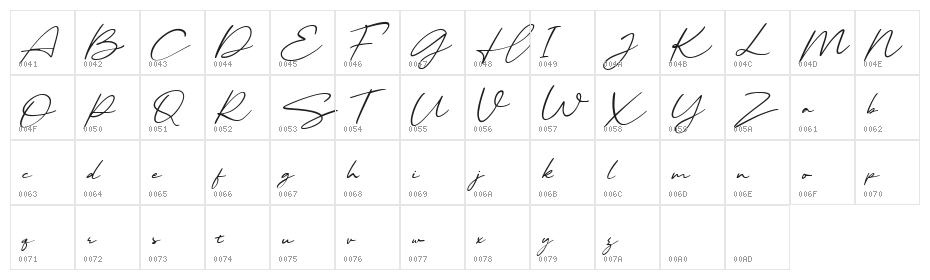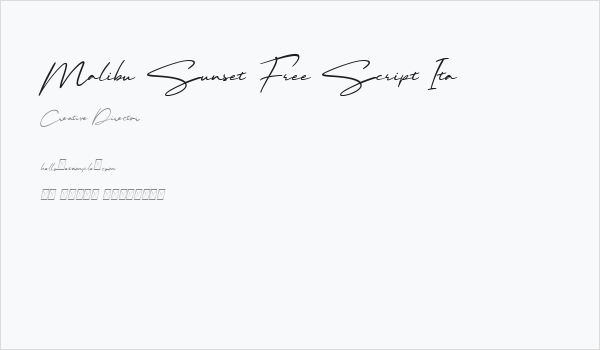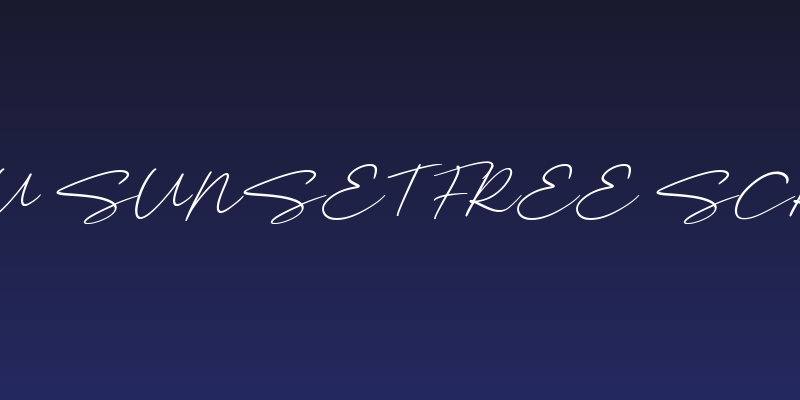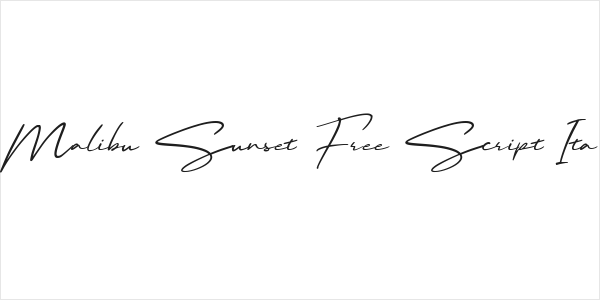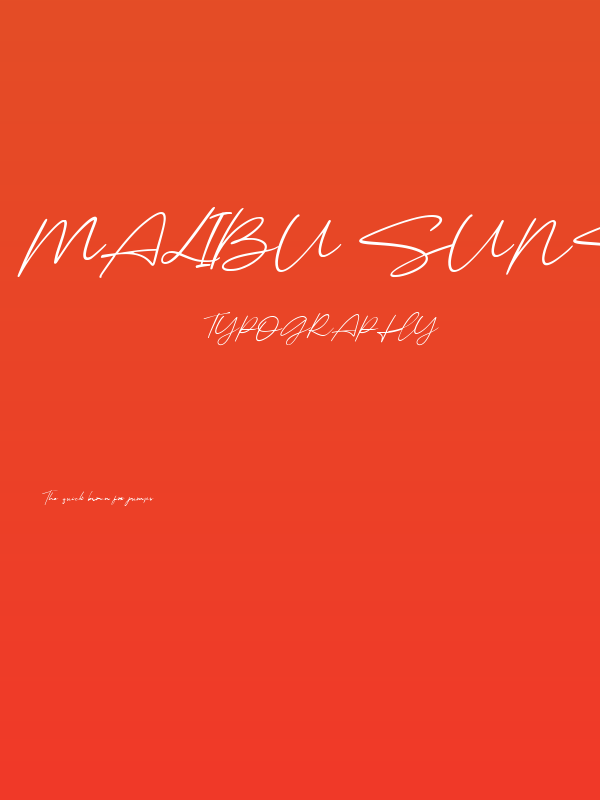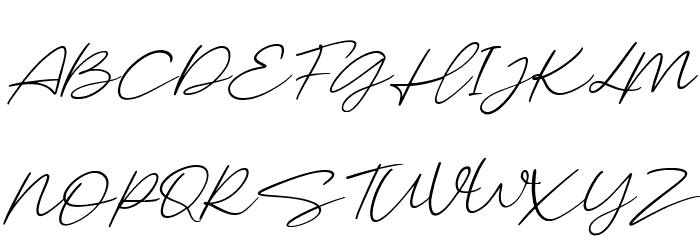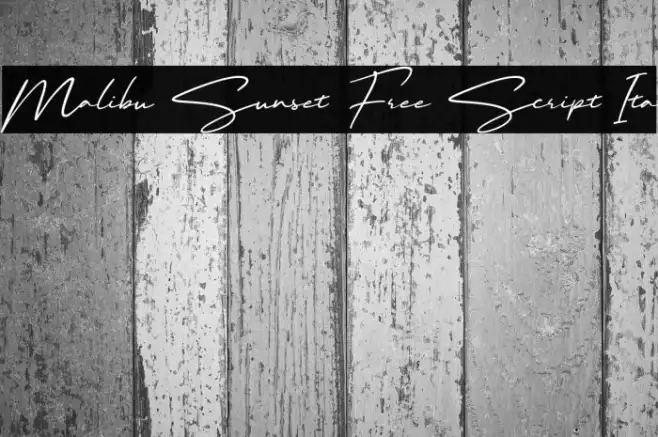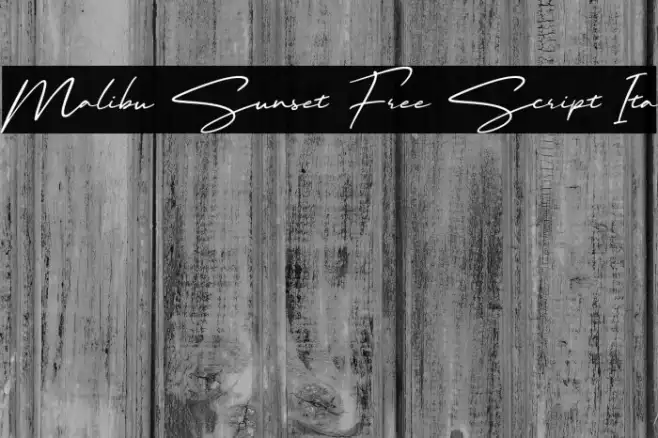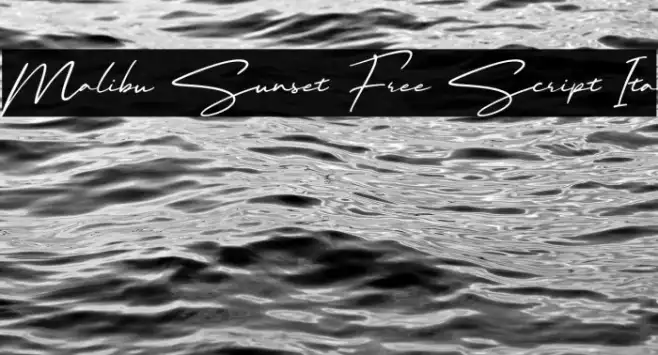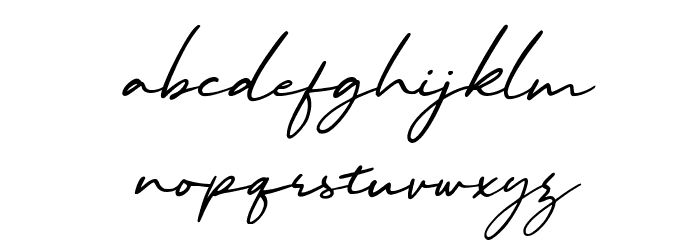
Malibu Sunset Free Script Ita Font
Malibu Sunset Free Script Ita Description
This font exudes a casual elegance with its flowing, cursive script style. The letters are interconnected, creating a seamless and fluid appearance that mimics natural handwriting. The strokes are smooth and slightly varied in thickness, adding a touch of sophistication and charm. The uppercase letters are bold and prominent, while the lowercase letters maintain a consistent flow, enhancing readability. This font is perfect for projects that require a personal touch, such as invitations, greeting cards, or branding materials. Its stylish and modern aesthetic makes it versatile for various design applications.
| Use Case | Logos, Headlines, Personal projects |
| Proposed Projects | Ideal for invitations, greeting cards, branding materials, and personal projects. |